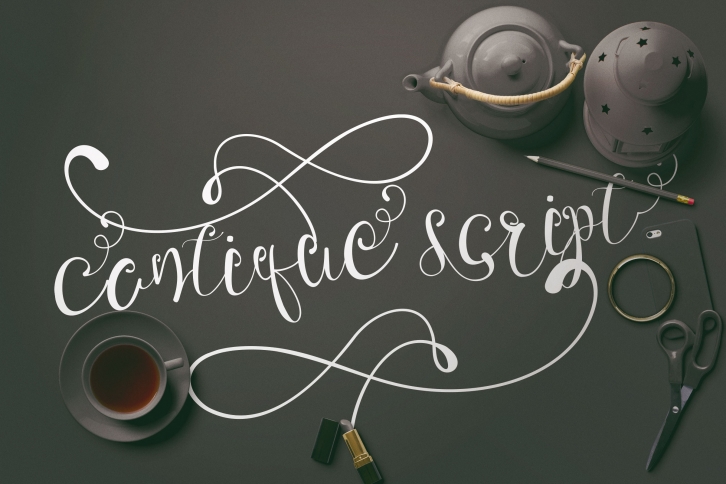
Cantique Script Calligraphy is a trendy and unique font with an authentic style. It was designed by Antimainstype and it's a great choice for creative people who need such a font. It was released on October 27, 2016 and the file size is 16.63 MB. Cantique Script Calligraphy will add an organic vibe to any design idea!